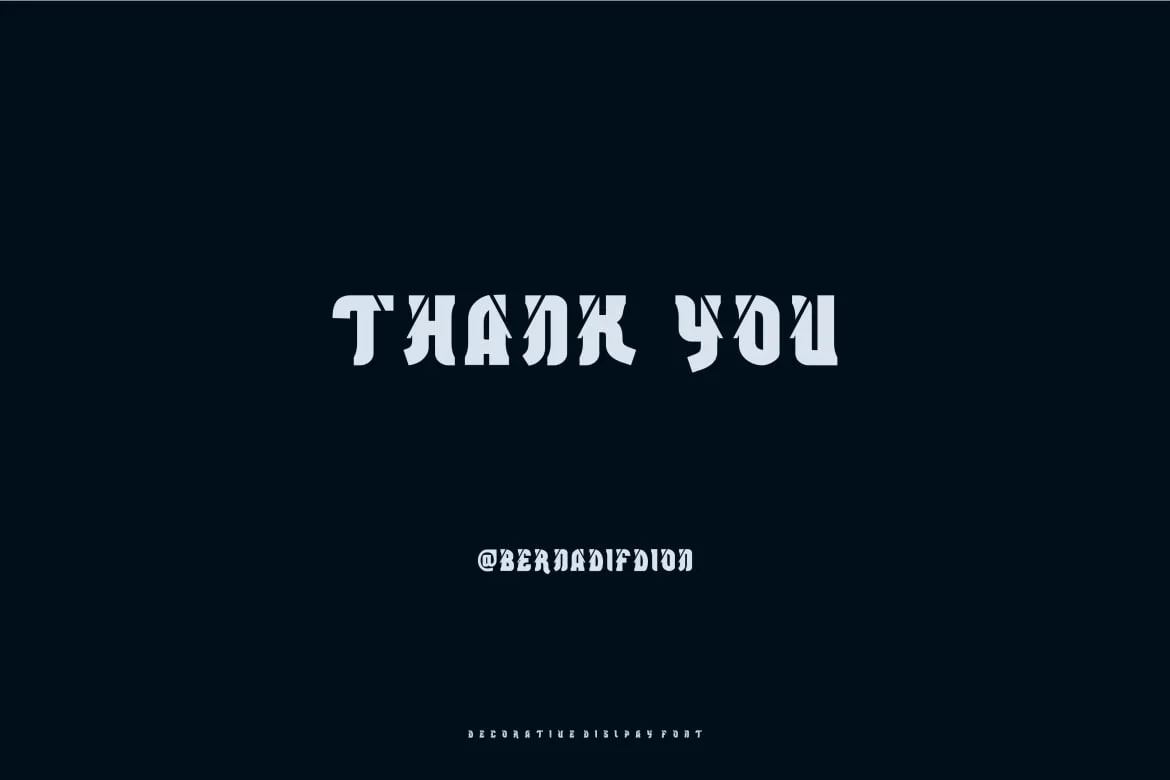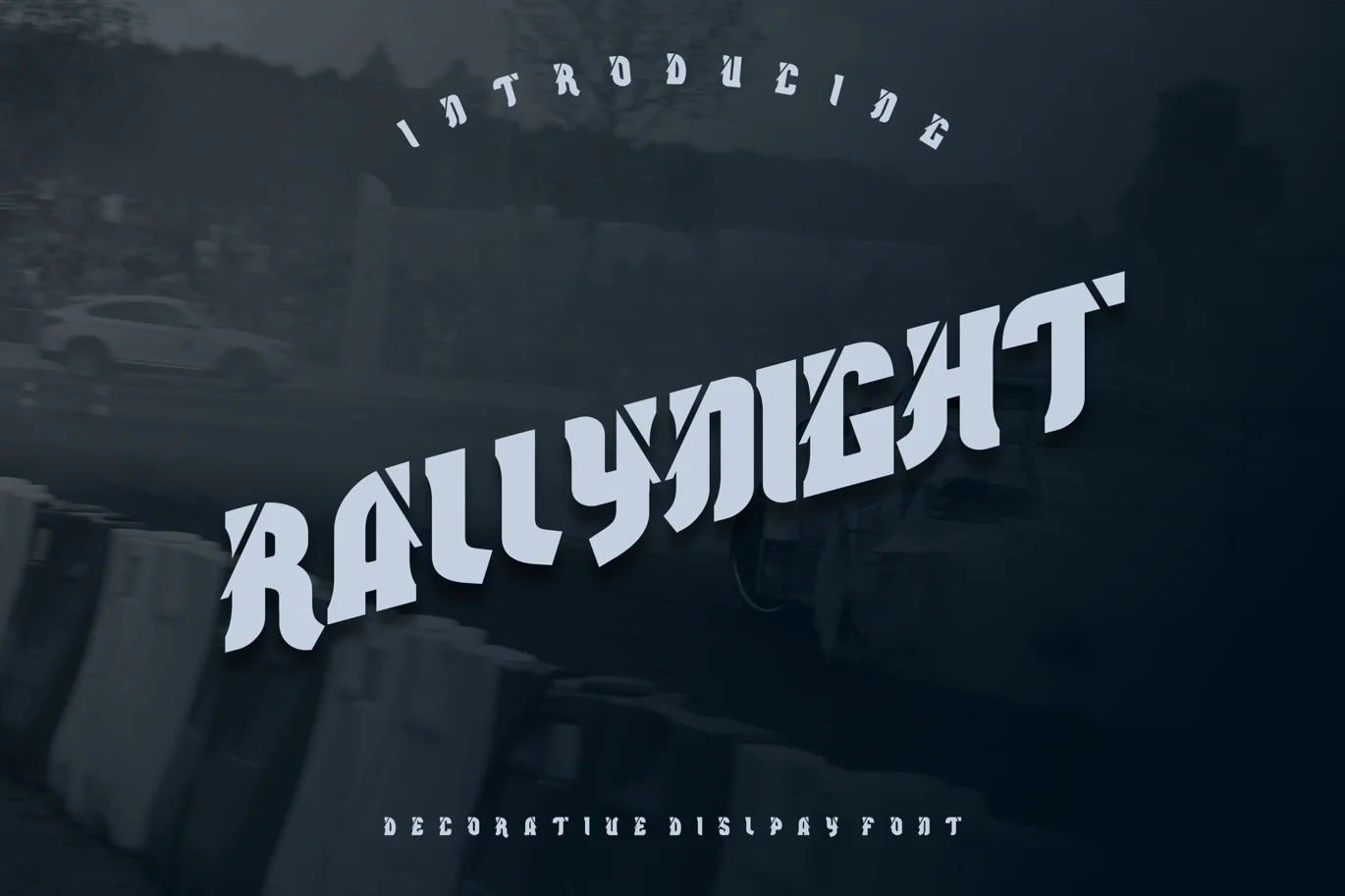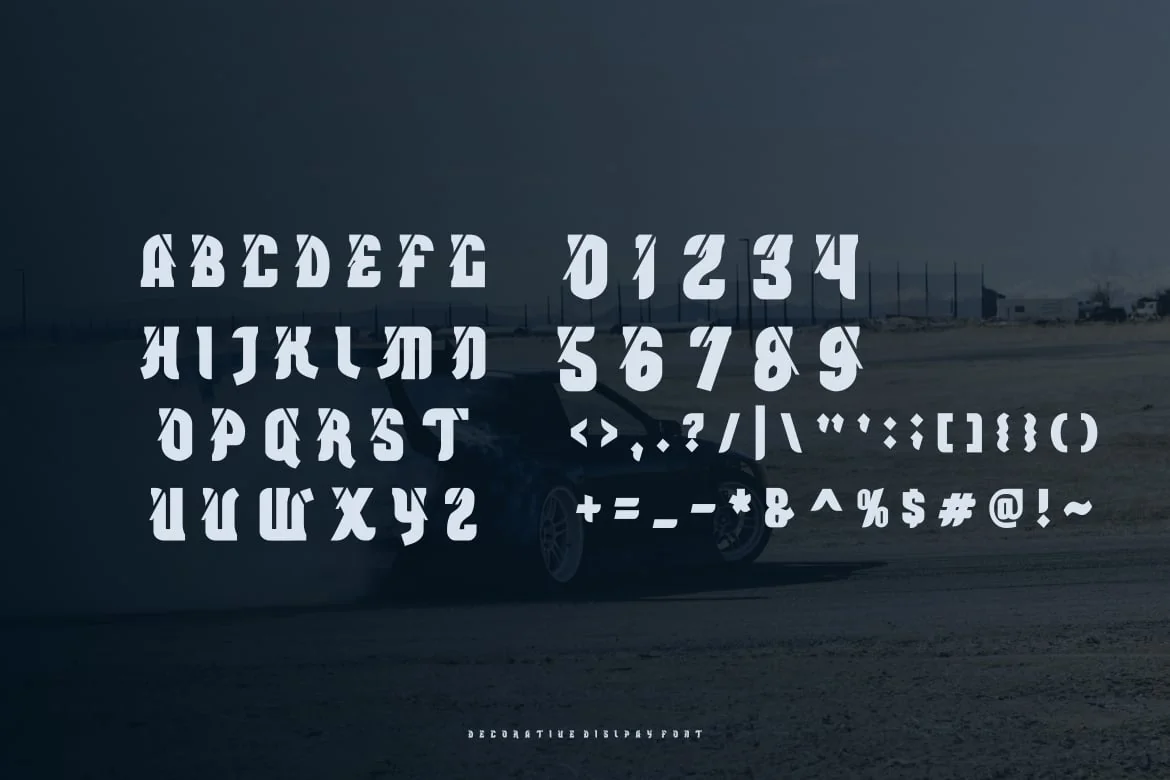
Rallynight Decorative Display Font
Introducing our new product Rallynight Decorative Display Font – Modern Font
Rallynight Decorative Display Font – Modern Font is a bold and authentic display font. The font is suitable for any branding project like logo, t-shirt printing, esport, and many more. outstanding in a wide range of contexts.